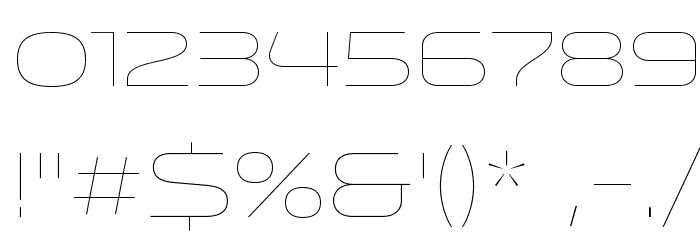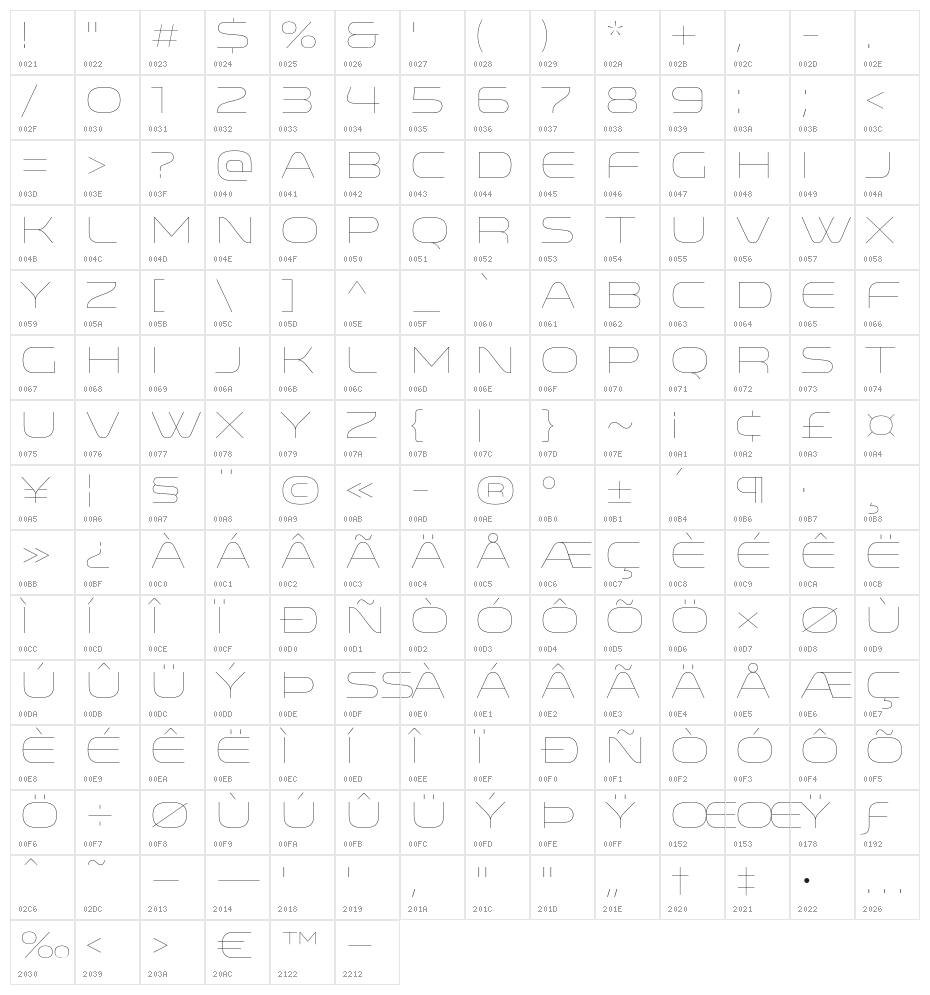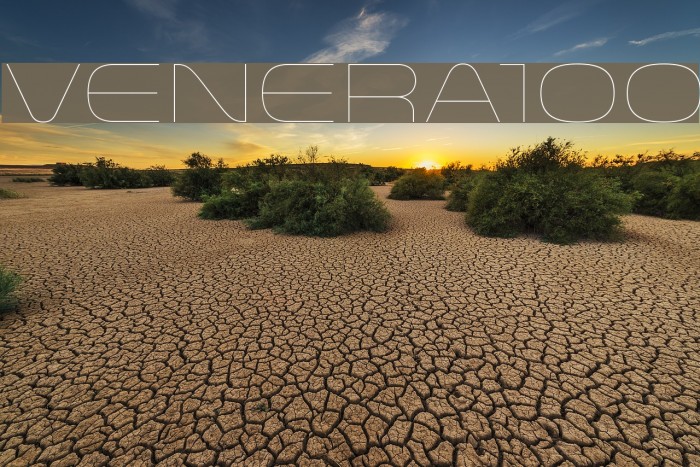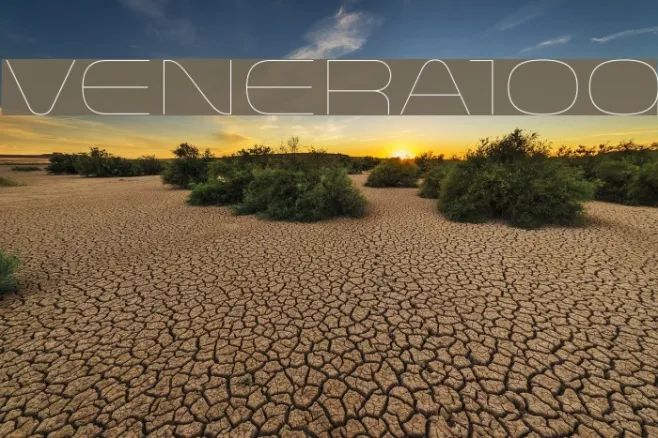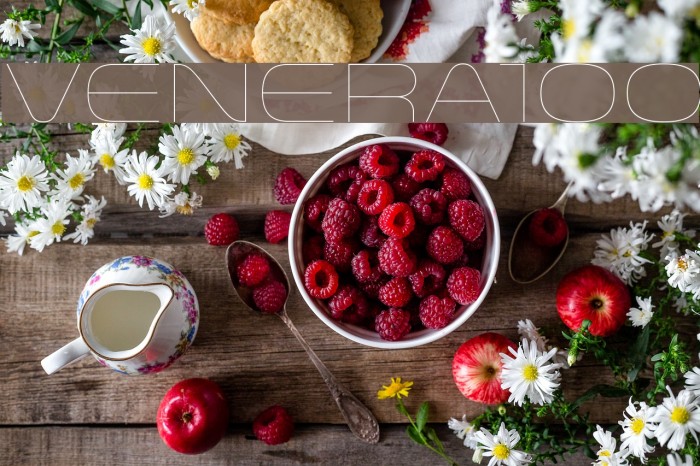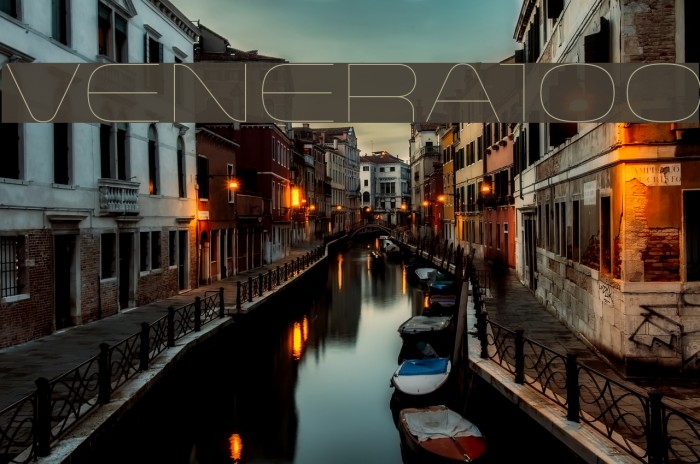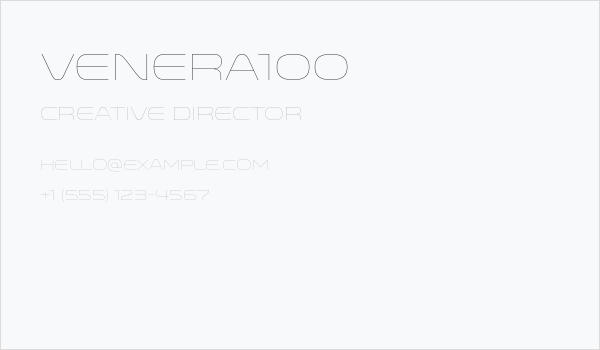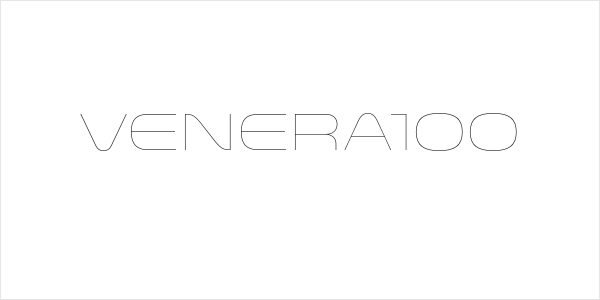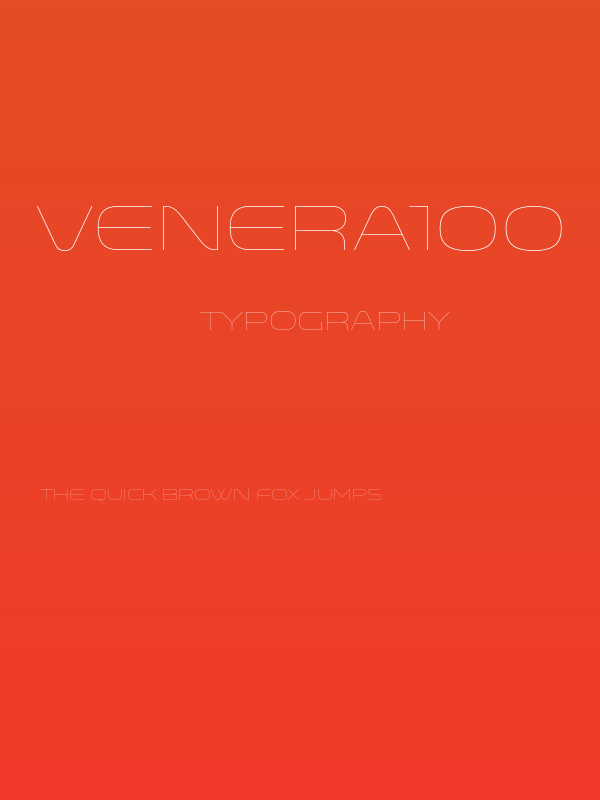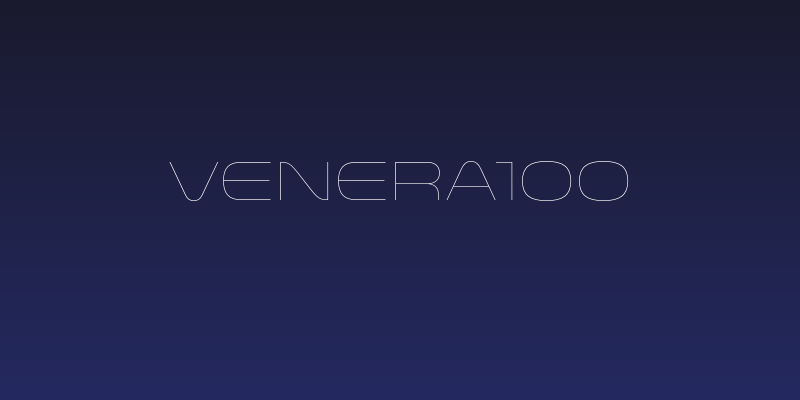
Venera100 Font
Venera100 Description
This font features a sleek, modern design with a geometric structure. The characters are composed of thin, consistent lines that give it a minimalist and futuristic appearance. The uppercase and lowercase letters share a uniform height, enhancing its clean and organized look. The numerals and special characters maintain the same geometric style, ensuring a cohesive visual experience. The font's simplicity and elegance make it suitable for contemporary design projects, where clarity and precision are essential.